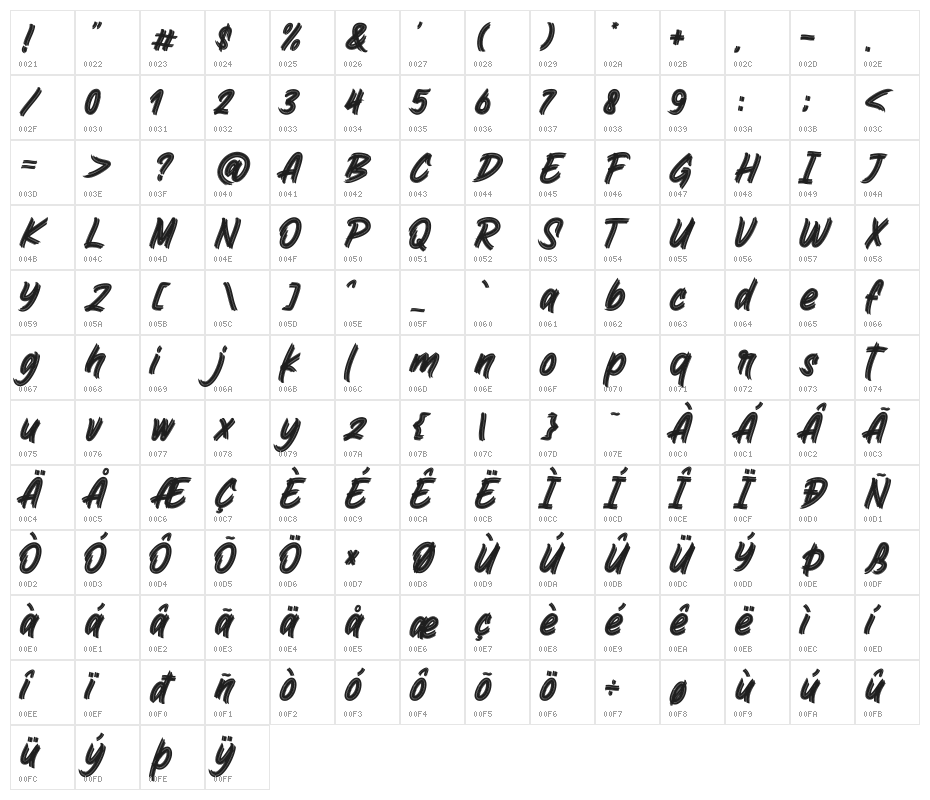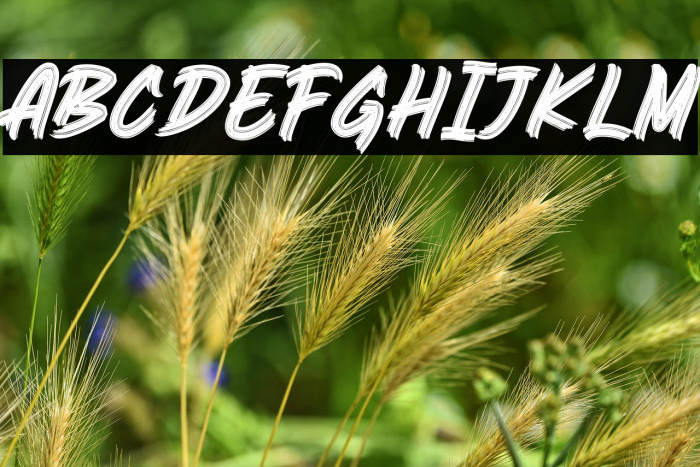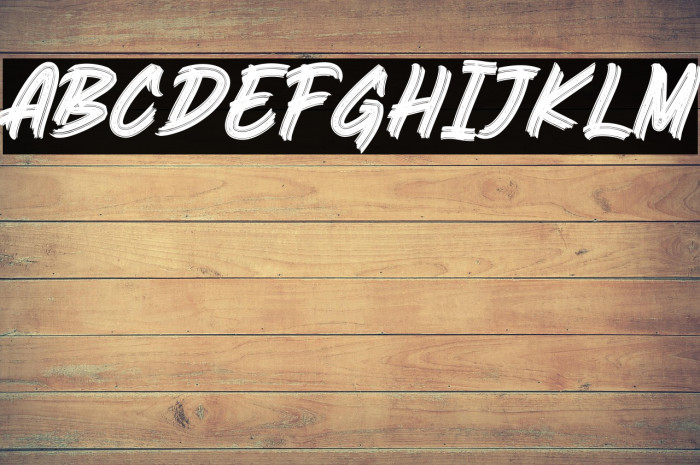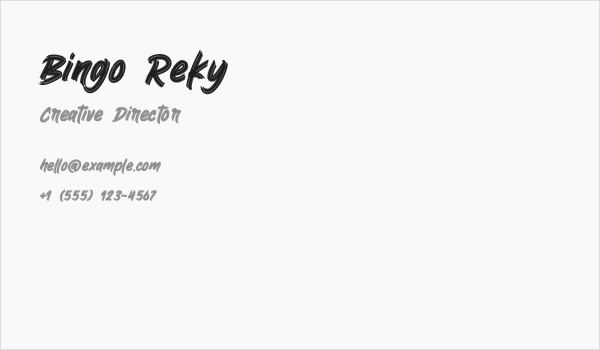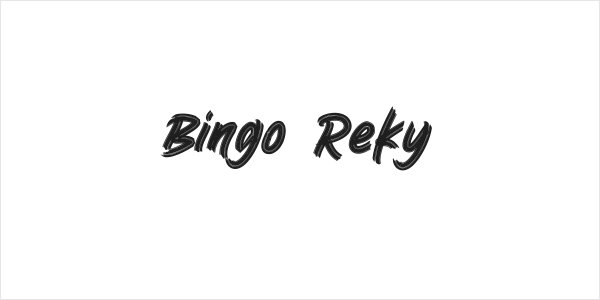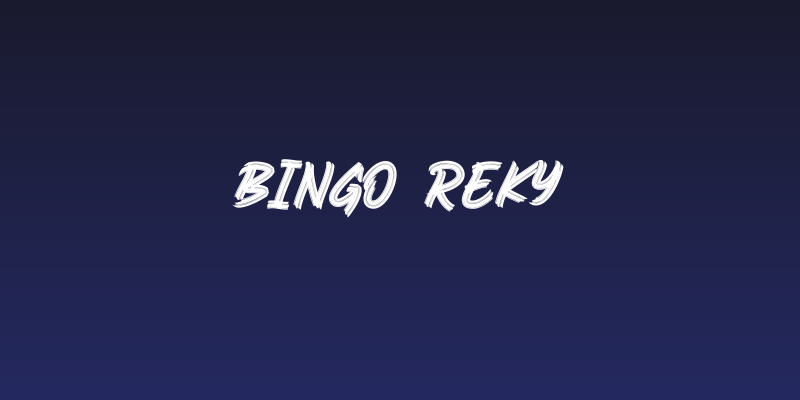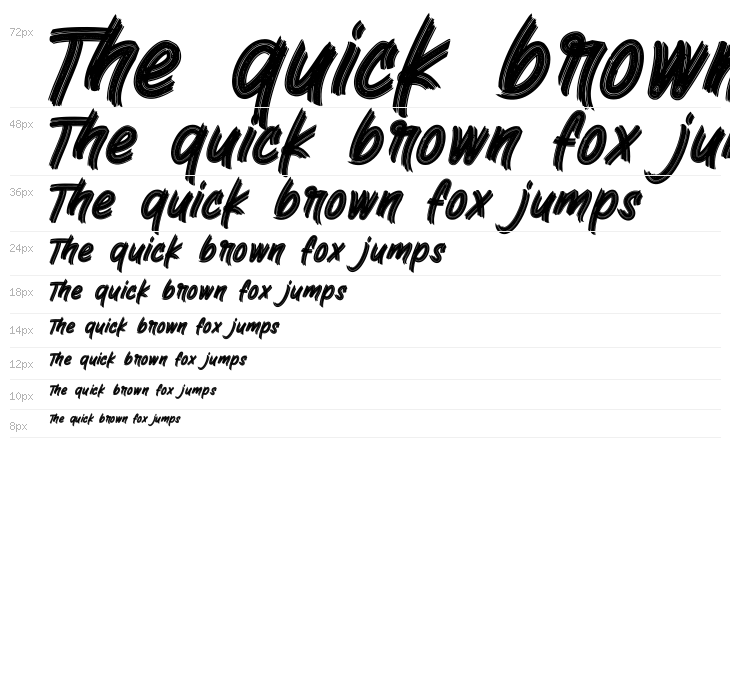
Bingo Reky Font
Bingo Reky Description
This font features a bold, energetic brush style that exudes a sense of movement and dynamism. The strokes are thick and textured, giving the impression of being hand-painted with a brush. Each character is unique, with varying stroke widths that add to the font's lively and spontaneous feel. The uppercase and lowercase letters maintain a consistent style, while the numbers and special characters complement the overall aesthetic. This font is perfect for projects that require a personal, artistic touch, making it ideal for creative branding, posters, and expressive headlines.
| Proposed Projects | Ideal for creative branding, posters, expressive headlines, and artistic designs. |